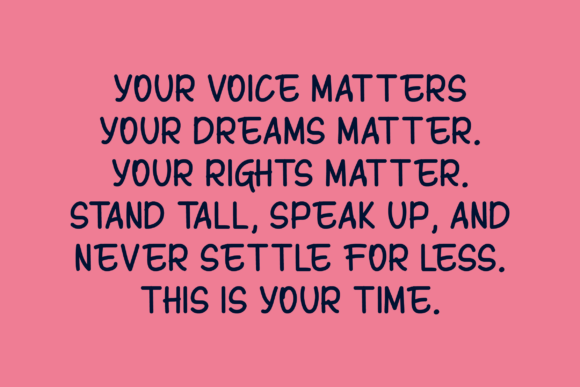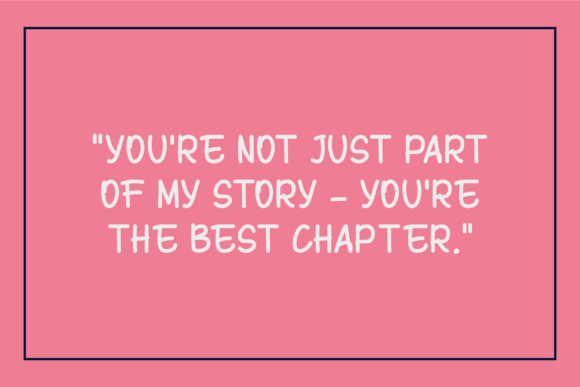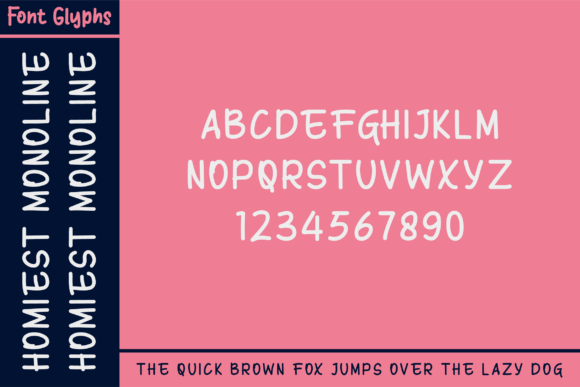
Introduction to Homiest Monoline Font
Do you remember the moment when you stumbled upon the perfect font that captured the essence of your brand? For designers, this moment is like finding a treasure – it can make or break a project. As I sat at my desk, staring at a blank canvas, I was on the hunt for the perfect font to elevate my creative project. That’s when I discovered the Homiest Monoline Font, a game-changer that brought a warm, personal touch to my design.
The Homiest Monoline Font is more than just a font – it’s a design resource that can add a professional yet approachable aesthetic to any project. With its unique monoline style, this font is perfect for branding, packaging, social media, and print. Whether you’re looking for a free download or a high-quality font for your next creative project, the Homiest Monoline Font is an excellent choice. Its transparent background and versatility make it an ideal addition to any design collection.
Key Features of Homiest Monoline Font
- High-quality design with a unique, monoline style perfect for creative projects.
- Designed with a clean and minimalist aesthetic, ideal for use in logos, branding, and typography-based designs.
- Perfect for designers looking for a modern, yet timeless, font to elevate their creative project.
Honest Review: Homiest Monoline Font
I recently had the chance to work with the Homiest Monoline Font, and I must say it’s been a delightful addition to my design library. ✨ This free download has quickly become a go-to for all my creative projects that require a touch of elegance and sophistication.
One of the things I love about this font is its high quality design. The monoline style gives it a clean and modern look that’s perfect for any design resource. The transparent background makes it easy to use on any background, and the font’s versatility allows me to use it for a wide range of projects.
Here are some of the key features that make the Homiest Monoline Font stand out:
- High quality design
- Monoline style for a clean and modern look
- Free download for all design enthusiasts
While the Homiest Monoline Font is an excellent addition to any designer’s library, I do have a few minor complaints. ⚠️ The font could benefit from more font sizes and styles to give designers more flexibility. Additionally, the font may not be suitable for all types of projects, such as those that require bold or distressed fonts.
Overall, I’m thoroughly impressed with the Homiest Monoline Font. Its high quality design and versatility make it a must-have for any designer looking to add a touch of elegance to their creative project.
To get the most out of the Homiest Monoline Font, use it for:
1. Branding and identity design.
2. Digital signage and displays.
3. Social media graphics and advertising.
Where can I use the Homiest Monoline Font in my design project?
The Homiest Monoline Font is a versatile design resource that can be used in a variety of creative projects, including logos, typography, branding, and more. It’s perfect for designers who want to add a touch of elegance and sophistication to their designs.